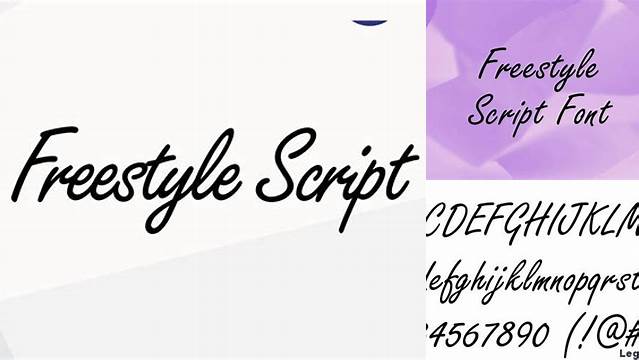
Freestyle 20 Script Font Free Download: Your Ultimate Guide
Hey font fanatics! Ever been on the hunt for that perfect script font, the one that just screams personality and style? Well, you're in luck! Today, we're diving headfirst into the world of the Freestyle 20 script font, and guess what? You can snag it with a free download! This guide is your one-stop shop for everything you need to know: where to find it, how to use it, and how to make your designs pop. So, buckle up, buttercups, and let's get this font party started!
Freestyle Script Font: Unveiling the Charm
Alright, let's get down to brass tacks. What is Freestyle Script? It's a gorgeous, flowing script font that's perfect for a ton of different projects. Think invitations, logos, social media graphics, and anything else where you want to add a touch of elegance and flair. The beauty of Freestyle Script lies in its versatility. It's got that classic, handwritten feel, but it's also clean and legible, which is a win-win! It's not overly stylized, so it's easy to read while still providing a sense of sophistication. This font is designed with a distinct personality, offering a balance between elegance and approachability. You'll often see it used in branding because of this very reason, it is easy to read for all your audience. It's like that friend who's always stylish but never tries too hard. The letters flow seamlessly together, giving your text a natural, organic feel, making it feel custom and bespoke. And seriously, it's free! Which, let's be honest, is the best price. This font is a testament to the idea that quality design doesn't always have to come with a hefty price tag. Whether you're a seasoned designer or a newbie, this font is a great tool to have in your arsenal. You'll find yourself using this font more than you think! It is perfect for adding a touch of sophistication to your design projects without the need to invest money. What more could you ask for?
This font is a digital embodiment of artistry, allowing you to infuse your projects with a layer of handwritten elegance. It’s a font that seems to have been created with a pen, rather than a computer. The flowing strokes of each letter create a visual melody that draws the viewer's eye. This effect contributes significantly to the aesthetic appeal of designs, making them appear polished and well-crafted. It’s a font that has a personality, and it is a joy to work with. The designers paid close attention to the nuances of a true script font, ensuring each letter is carefully crafted for optimal readability. This is key as it ensures your message is conveyed clearly and effectively to your audience, enhancing the overall impact of your design. The adaptability of Freestyle Script is also a major selling point. It's suitable for a wide range of applications, from personal projects to professional endeavors. You can use it for anything from creating stunning wedding invitations to designing eye-catching social media content, highlighting its versatility. The font can be used with all of your favourite apps, and you are sure to enjoy it. The overall design makes it a must-have resource for designers looking to add a personal, elegant touch to their work.
Freestyle 20 Font: A Deep Dive into its Characteristics
Let's talk specifics. What makes Freestyle 20 so special? This script font isn't just pretty; it's also well-designed and easy to use. It boasts smooth curves, elegant strokes, and a natural flow that makes your text look like it was handwritten. The character set is usually pretty extensive, meaning you'll have a good selection of letters, numbers, and special characters to work with. This versatility allows you to use the font in a wide range of projects, from short headlines to longer paragraphs of text. The readability of a font is a major factor, and Freestyle 20 shines in this area. Despite its intricate script style, it maintains a high level of legibility, making it suitable for various applications. This makes it suitable for everything. The font's design also complements a wide range of graphic design styles, from minimalist to ornate. This flexibility adds to the font's appeal, making it an ideal choice for various projects. Whether you're designing a logo, creating social media graphics, or working on a personal project, Freestyle 20 can add a touch of elegance and sophistication to your work. With its fluid lines and dynamic curves, Freestyle 20 captures the eye and enhances the overall visual appeal. The combination of aesthetics and functionality makes it a favorite for both personal and professional use. You'll find yourself using it again and again!